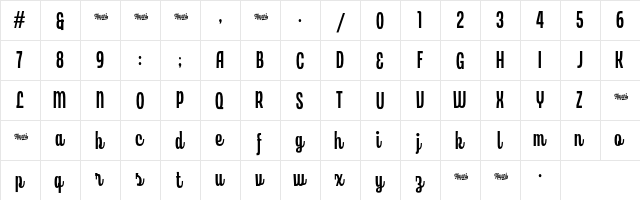
Laguna Vintage Script Demo Regular
Design Context for Laguna Vintage Script Demo Typeface
Laguna Vintage Script Demo wears its vintage influences proudly, with letterforms that recall mid-century signage, classic packaging, and nostalgia-driven design.
Ideal for diner signage, record shop branding, 70s/80s-themed projects, and heritage product labels.
Font Pairing: Combine Laguna Vintage Script Demo with a simple slab or neutral sans — period-accurate companions reinforce the vintage feel without competing for attention.
Pro Tip: Lean into Laguna Vintage Script Demo's period character by pairing it with aged paper textures, muted colour palettes, and vintage illustration styles.